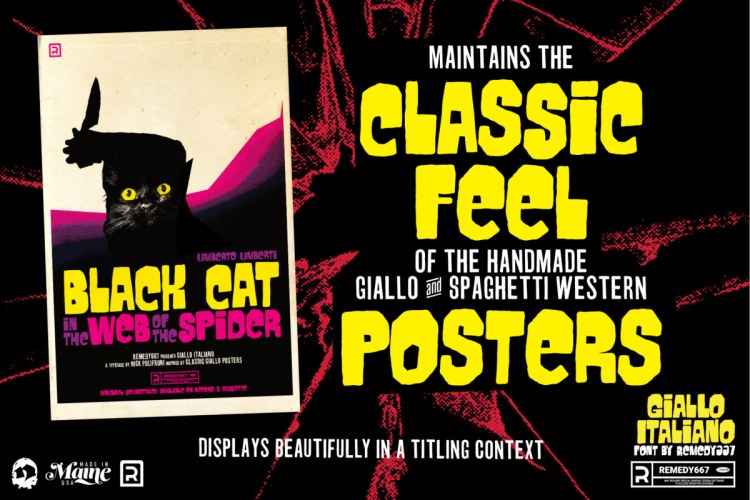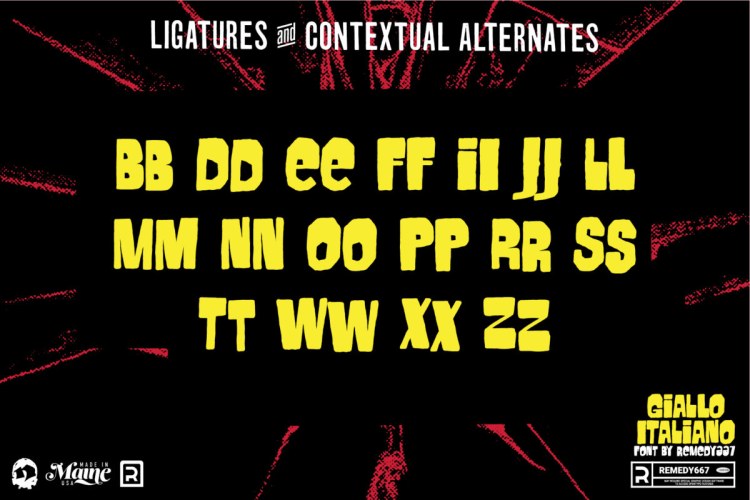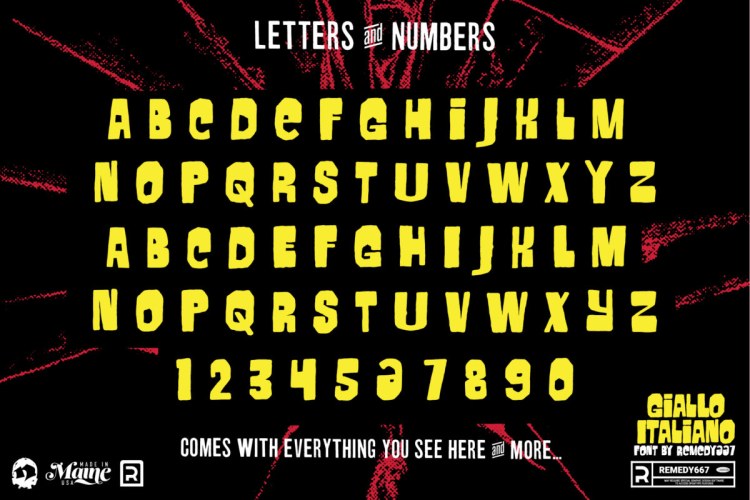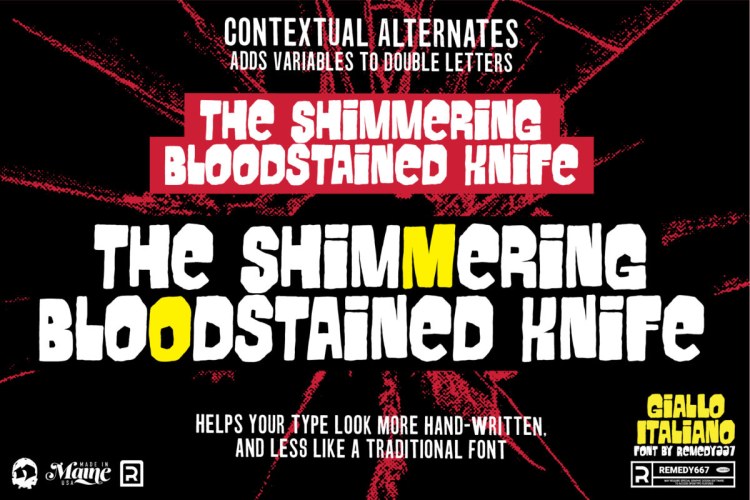
Giallo Italiano – Horror Film Font
Giallo Italiano, an horror font that captures the spirit of the lettering on the classics Giallo posters. The Giallo Italiano is hand-drawn to maintain the authenticity. The hand-made posters of Giallo and Spaghetti Western of the mid-century classic. A perfect face of the display for a crisp and vivid look that will make your own projects shine.
The Gialy Italiano includes contextual alternates to introduce new variables which will turn out to be helpful in ending the replicata of the letter, so your copy shall appear more handmade, and less like a traditional font. Giallo Italiano even comes with multilingual support when you want to step up beyond the borders.
Giallo Italiano – Horror Film Font is a Display Fonts font that brings a professional and versatile look to your projects. Giallo Italiano, an horror font that captures the spirit of the lettering on the classics Giallo posters.